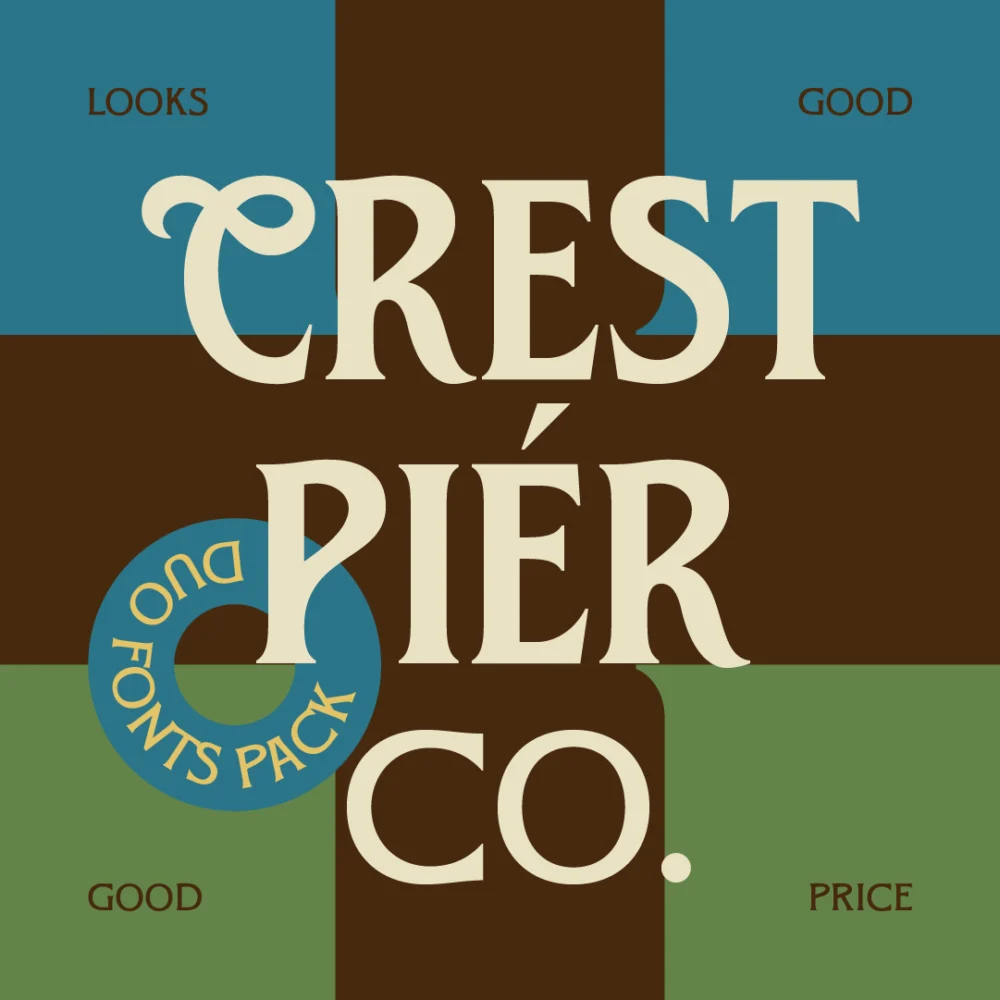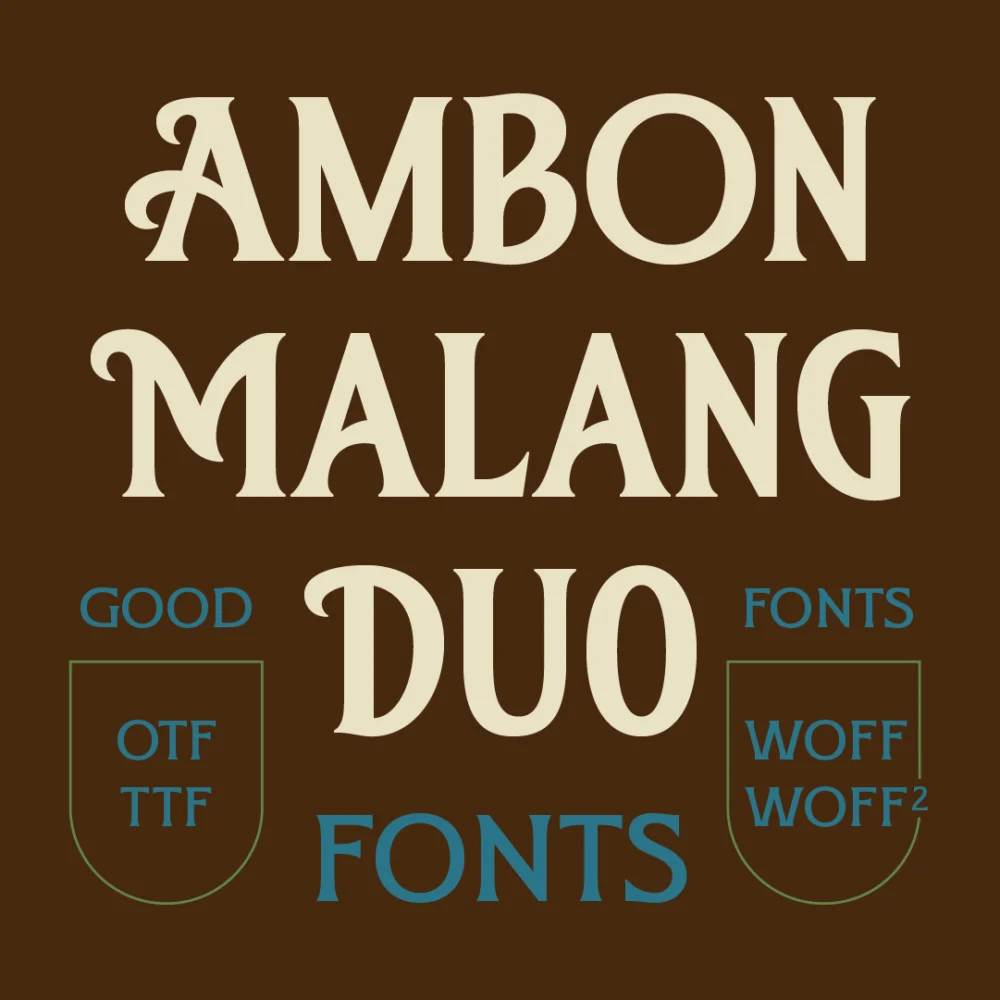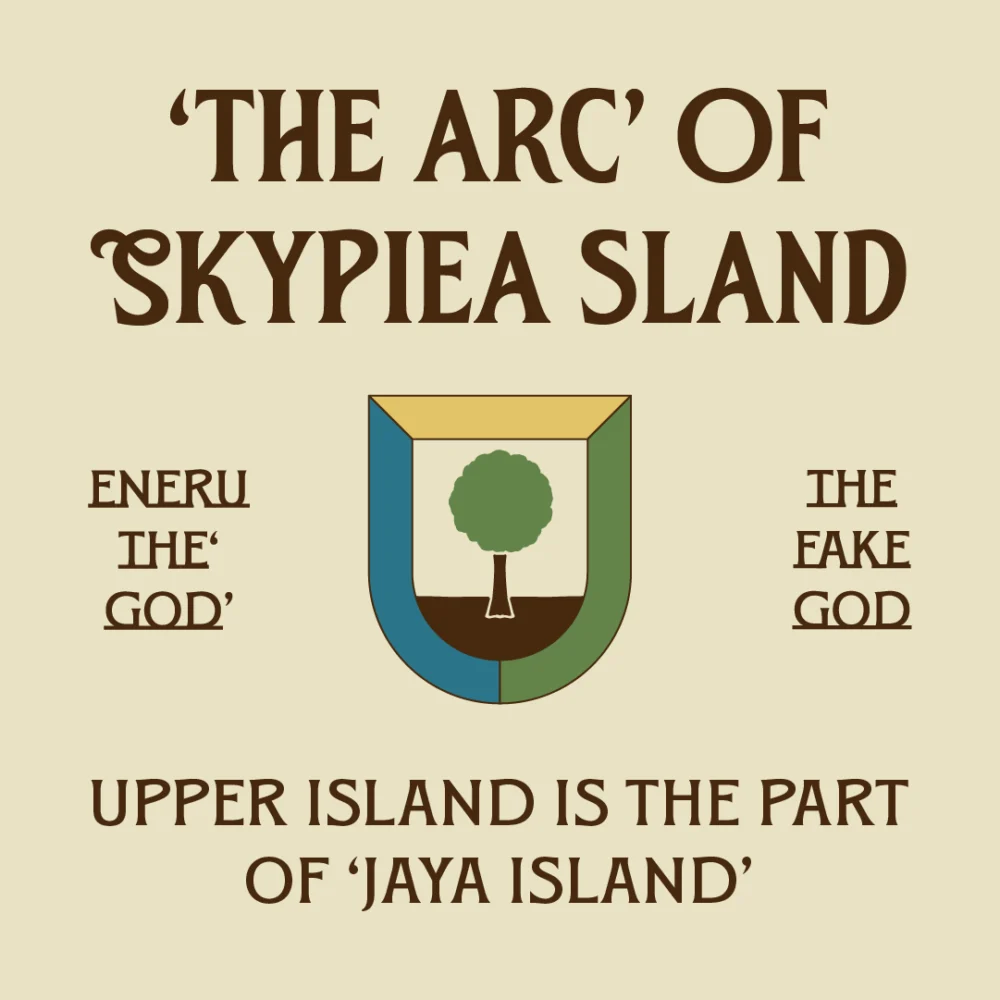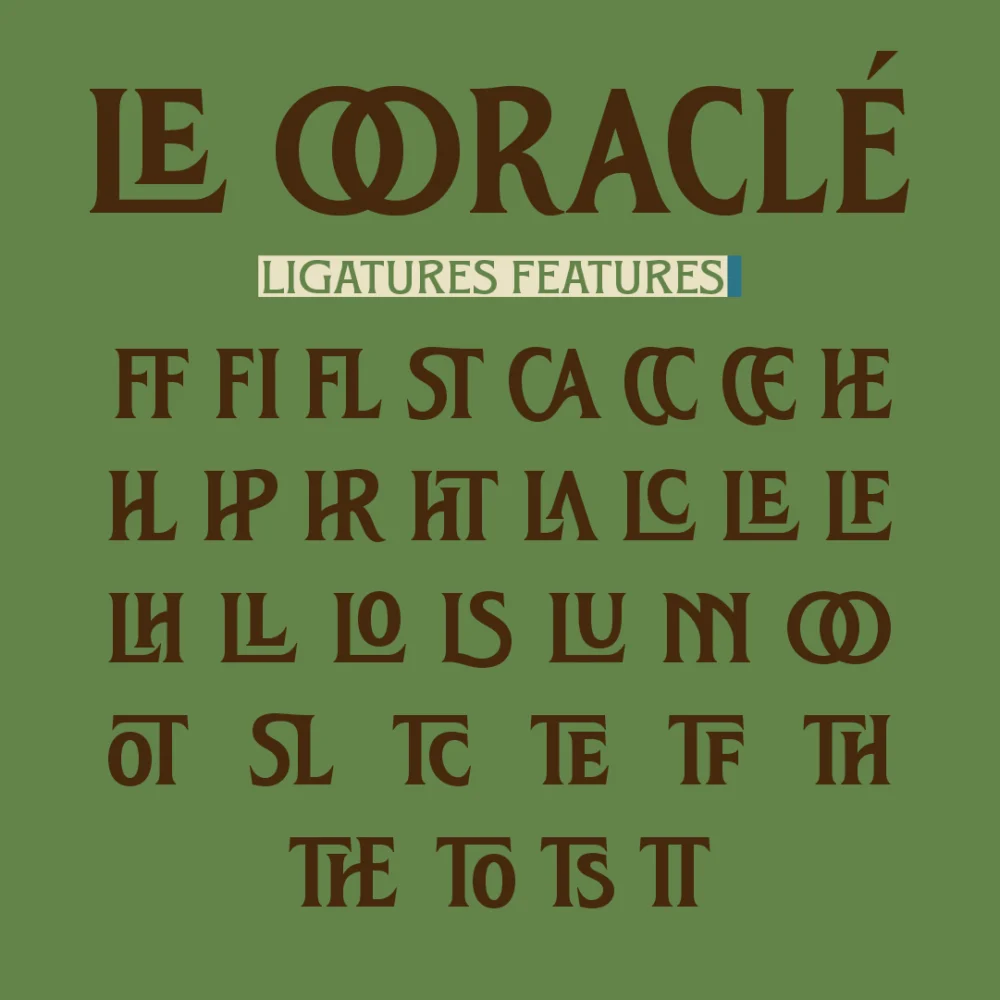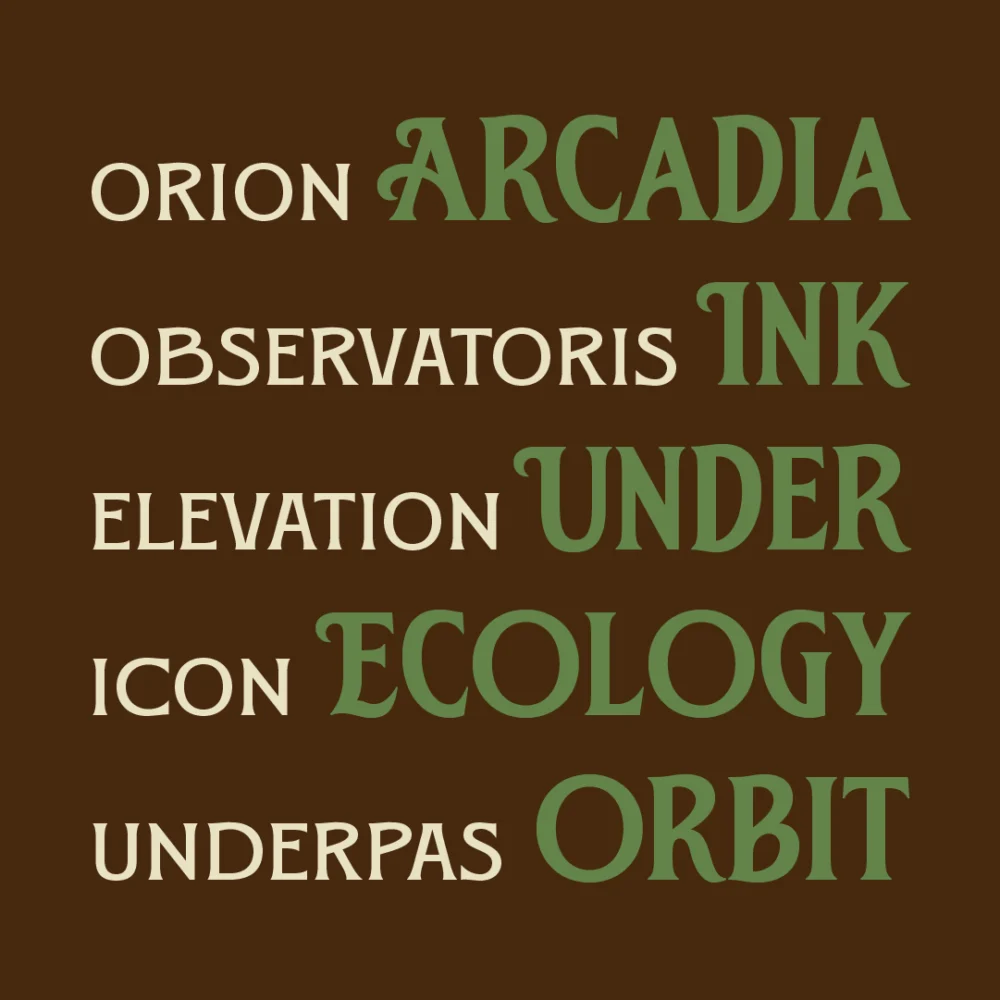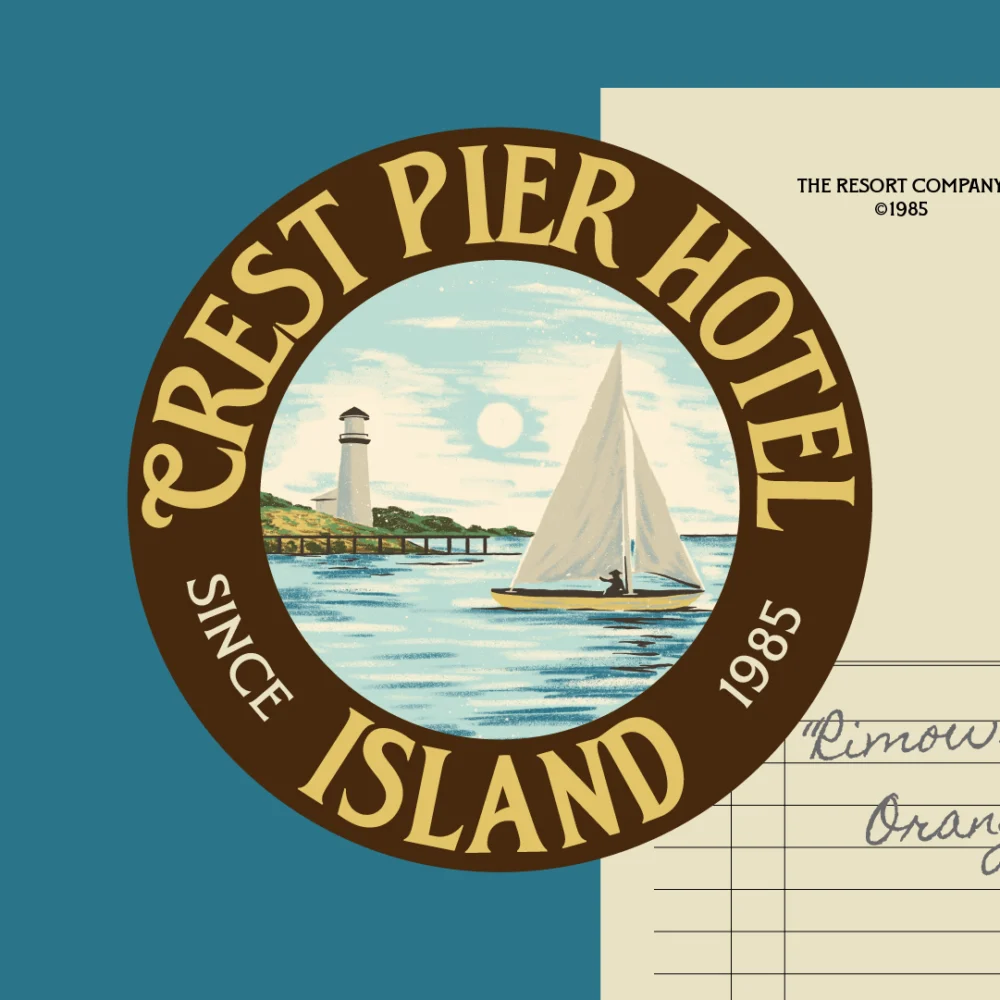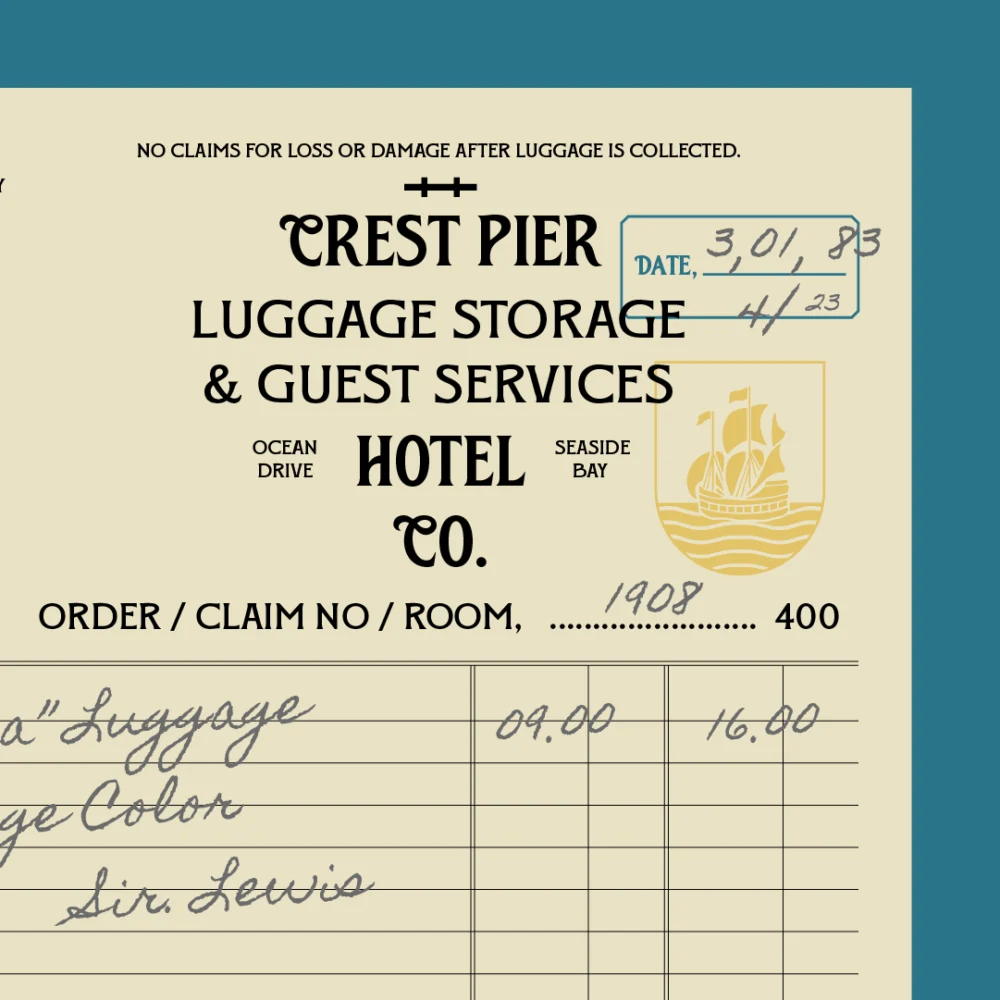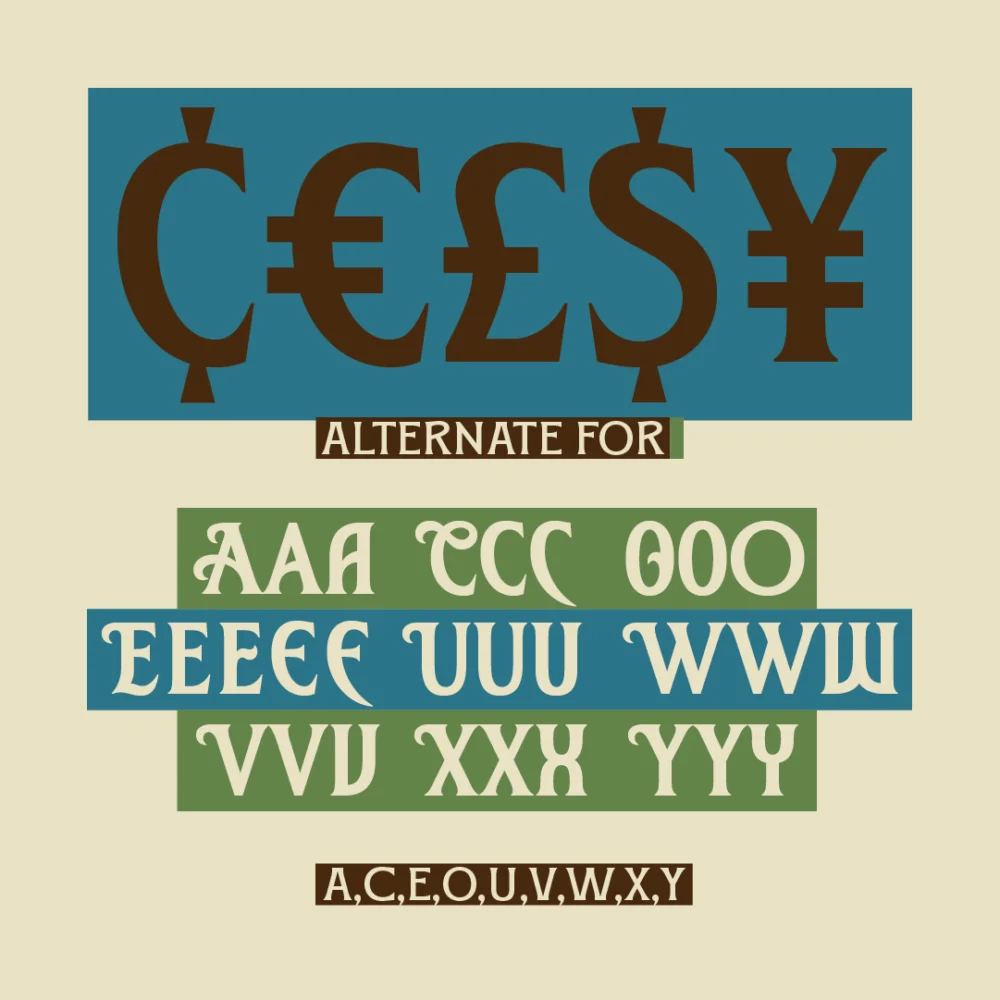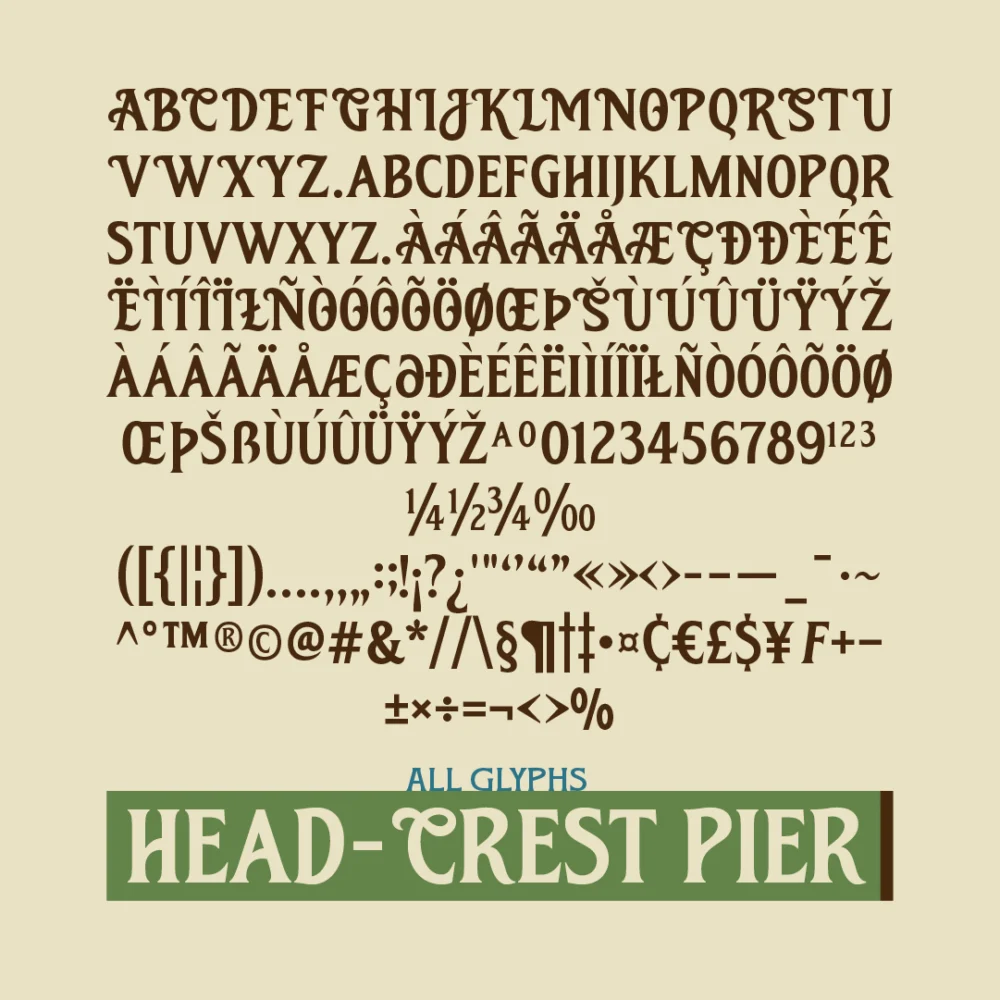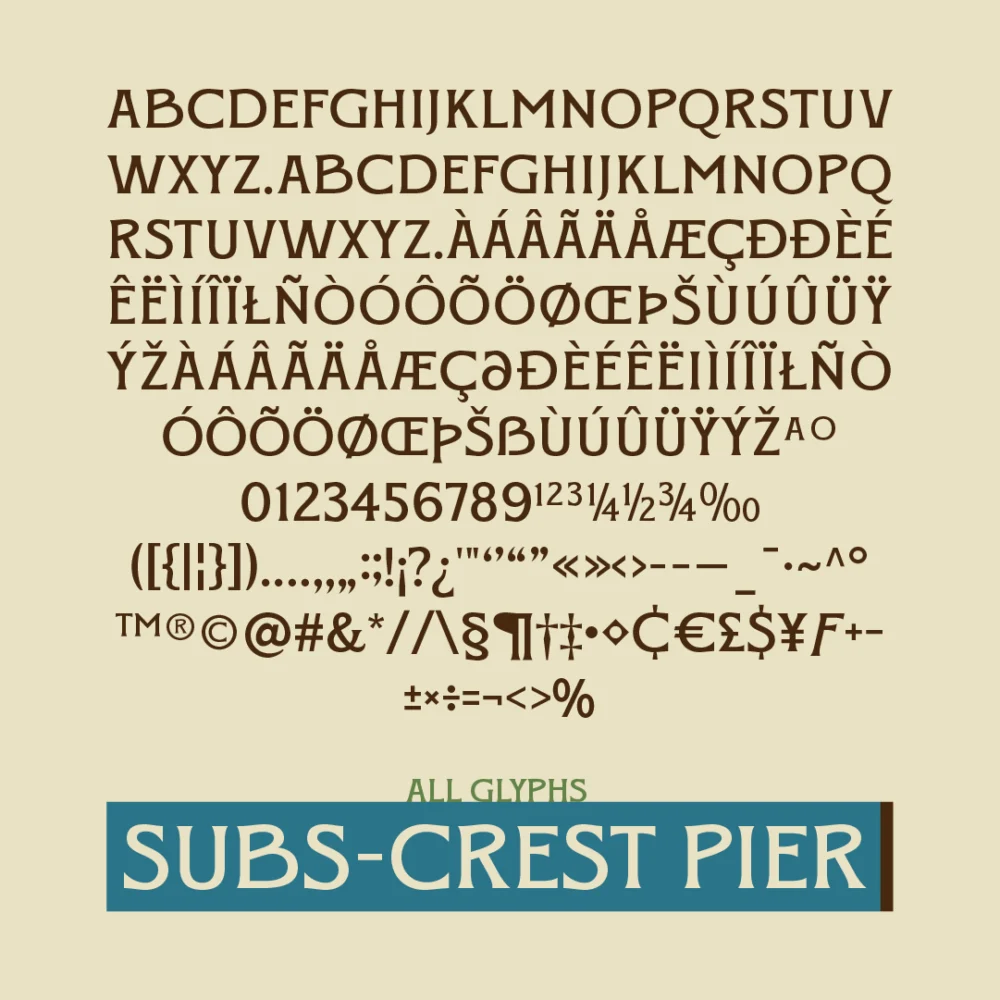
SFC Crest Pier is a refined vintage serif duo inspired by classic indies dutch colonial visual, heritage hotel branding, and timeless maritime aesthetics. Designed with elegant high-contrast strokes and soft flared terminals, this typeface blends sophistication and nostalgia into one cohesive system. More than just a font, SFC Crest Pier also includes a collection of vintage badge illustrations, crest elements, and decorative assets, allowing you to quickly build a strong, premium vintage identity without starting from scratch. Perfect for designers looking to create elegant, heritage-inspired visuals with ease.
Ideal Applications for SFC Crest Pier Typeface
- Branding & Visual Identity
- Heritage & Hospitality Branding
- Editorial & Magazine Layouts
- Packaging & Label Design
- Vintage Logo & Badge Design
- Duo Font (Serif + Subs Typeface)
- Elegant High-Contrast Serif Letterforms
- Ligatures & Stylistic Alternates
Extras Included
- Vintage Badge Illustrations
- Crest / Shield Logo Elements
- Icon Set (Maritime & Heraldic Style)
- Ready-to-use Badge Compositions
- Decorative Branding Elements